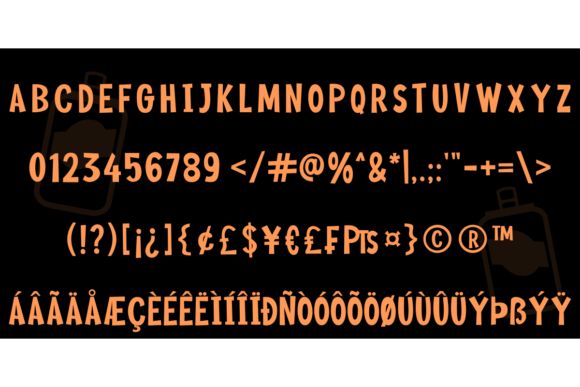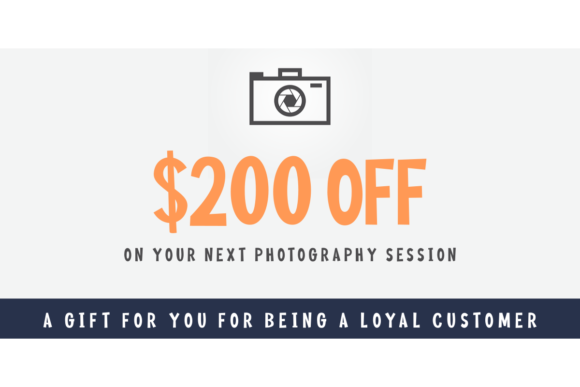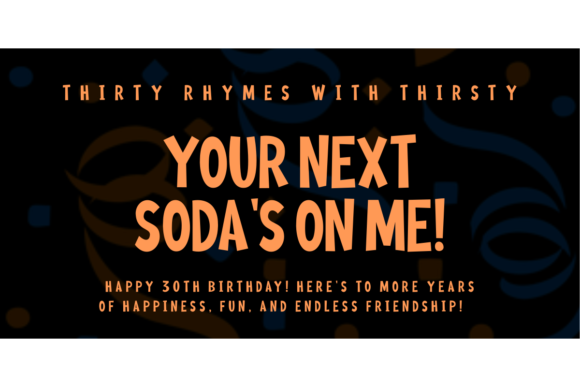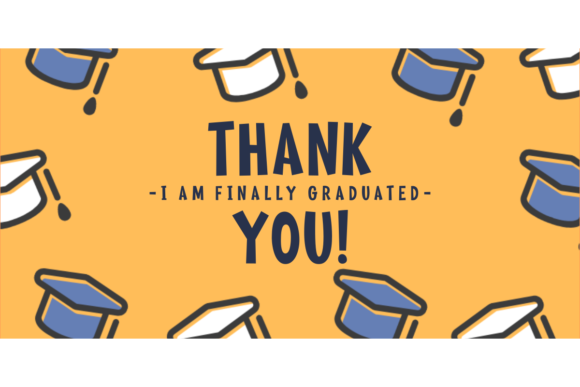
Introduction to Ginger Soda Font
Remember that moment when you’re brainstorming a creative project, and you stumble upon the perfect font that brings your entire concept to life? For designers, this is often the turning point that takes their idea from ordinary to extraordinary. The Ginger Soda Font is one of those game-changers, offering a bold and authentic display font that’s sure to elevate any design project.
Whether you’re working on a high-quality brochure, a website, or a social media campaign, the Ginger Soda Font is an invaluable design resource. Its unique style and versatility make it a perfect addition to any creative endeavor. And the best part? This stunning font is available for free download, complete with a transparent background that allows you to customize it to your heart’s content.
With the Ginger Soda Font, you’ll be able to give your designs a professional touch that’s sure to impress. So why settle for ordinary when you can have extraordinary? Add this amazing font to your design arsenal and watch your creative projects come to life in a whole new way.
Key Features of Ginger Soda Font
- High-quality, hand-drawn design perfect for creative projects, offering a unique and playful touch.
- Unique characteristics include a distressed, vintage feel and a bold, eye-catching aesthetic.
Honest Review: Ginger Soda Font
I recently stumbled upon the Ginger Soda Font and I must say, it’s a great addition to any creative project. The font is sleek, modern, and perfect for those looking for a high-quality sans-serif typeface.
- ⚠️ The font may not be suitable for extremely formal or professional projects due to its modern design.
- ⚠️ Some users may find the font too bold or overpowering.
Overall, I’m impressed with the Ginger Soda Font. It’s a fantastic design resource that can add a unique touch to any creative project. While it may not be perfect for every project, it’s definitely worth considering for those looking for a modern and high-quality sans-serif typeface.
Ginger Soda Font
The Ginger Soda Font is a high-quality, free download design resource ideal for various creative projects. It offers a unique and refreshing aesthetic, perfect for adding a touch of personality to your designs.
For the most out of the Ginger Soda Font, use it in combination with other design resources, such as icons and graphics. Experiment with different font sizes, colors, and arrangements to create unique and eye-catching designs.
The Ginger Soda Font is perfect for various creative projects, including branding, marketing materials, and social media graphics. Its unique aesthetic makes it ideal for adding a touch of personality to your designs, making it a valuable resource for designers and non-designers alike.